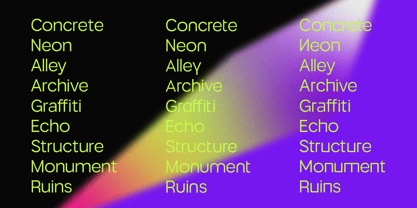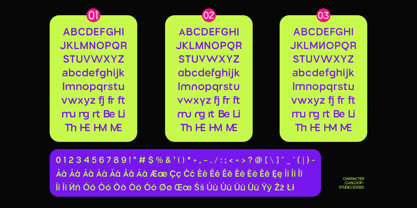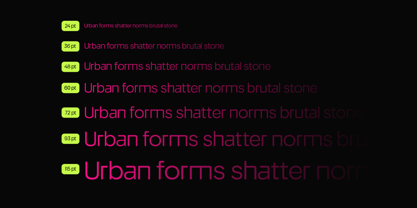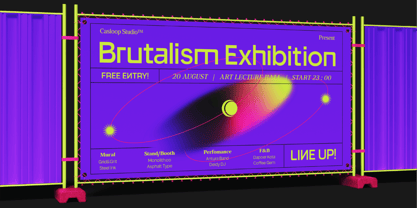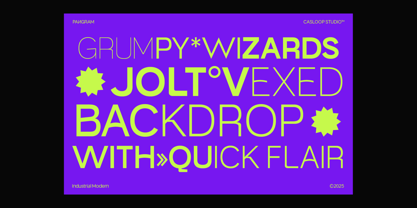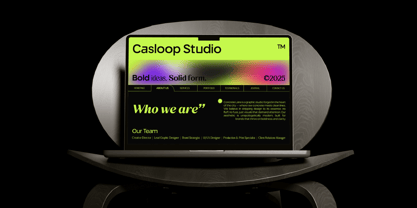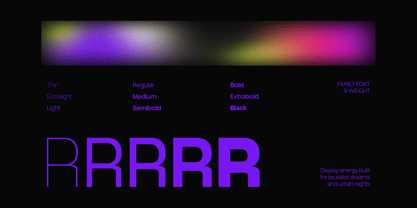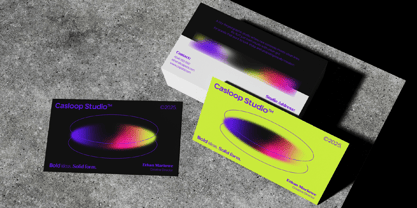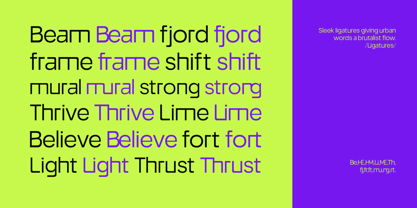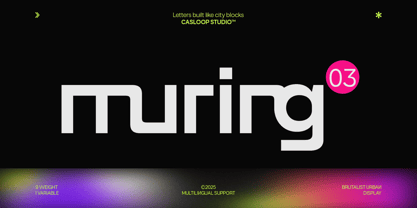
Muring 03
The Muring 03 Font Family was designed by Wantara Putra and published by Casloop Studio. Muring 03 contains 9 styles and family package options. More about this family
Muring.03 is the most experimental member of the family — keeping brutalist roots but adding expressive alternates and striking character details. Letters like R, A, and T introduce unique tension and flair, making this version ideal for designers who want brutalism with an artistic twist.
Its design invites play: from editorial posters to kinetic typography, Muring.03 thrives in bold, experimental contexts. Built in 9 weights (Thin to Black) it transitions smoothly across mediums, giving endless room for creative exploration.
This typeface is brutalism reimagined — raw, modern, but never afraid to show personality.
Personality
- “Muring” – industrial backbone with creative gestures
- Brutalist form, pushed into expressive territory
- Dynamic alternates, experimental energy
- Feels like: neon-lit billboards, motion graphics, experimental posters, kinetic type projects
Best For
- Creative campaigns & visual storytelling
- Motion graphics & text animation
- Posters, flyers, & large-scale typography
- Brand identities with bold personality
- Digital content with experimental flair
Muring.03 turns brutalism into creative expression. For designers who want their type to stand out with power and attitude, this font is the boldest voice in the Muring series.